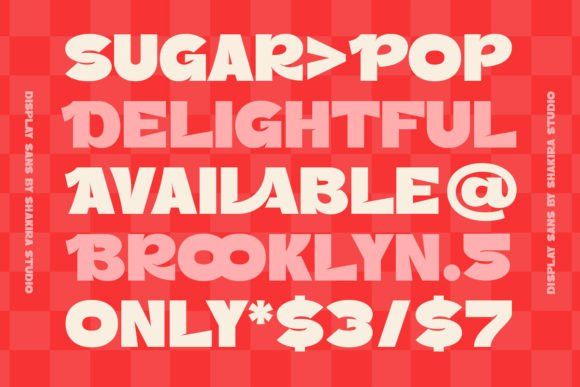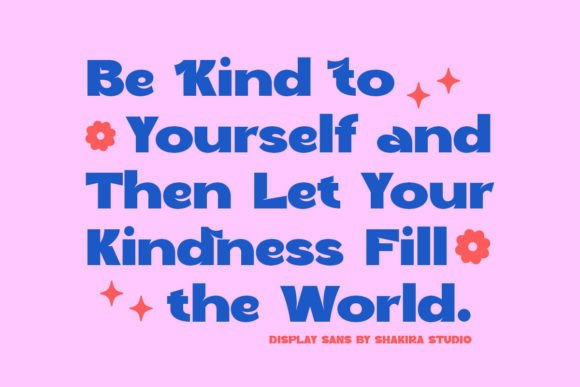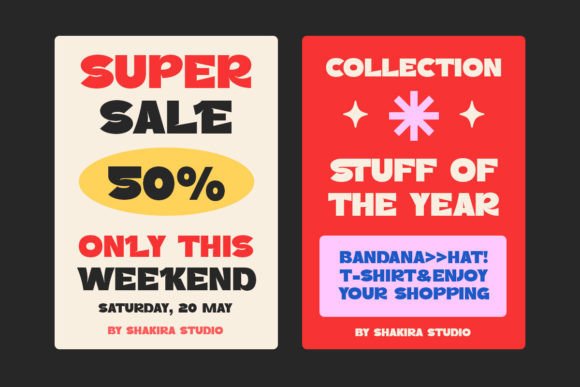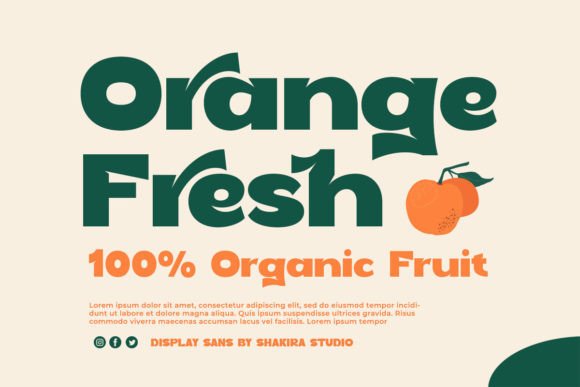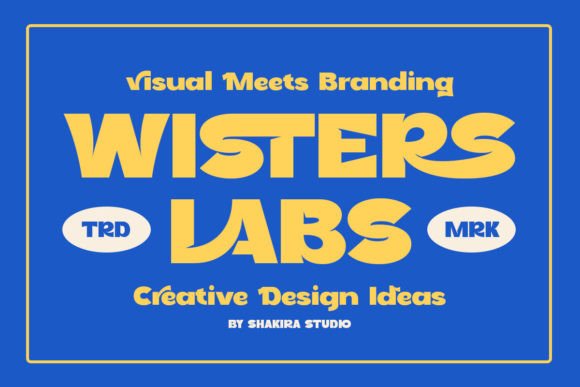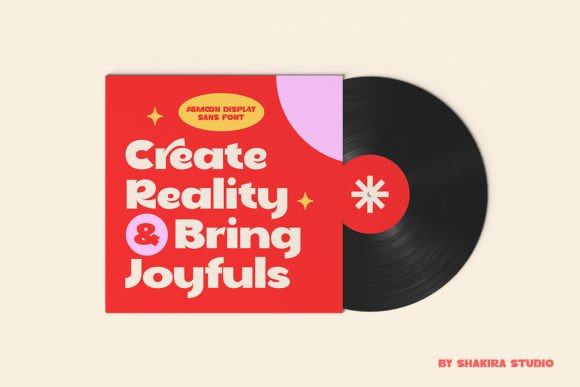
Introduction to Sagoon Font
You’ve finally landed that dream creative project, and the clock is ticking. You’re brainstorming ideas, pouring over inspiration, and searching for that one game-changing design element to take your project to the next level. That’s where Sagoon Font comes in – a bold sans serif display font that’s sure to make your designs stand out.
| 👤 Author | Shakira Studio |
As a designer, you know how valuable a high-quality, versatile font can be. Sagoon Font is the ultimate design resource, offering a unique blend of modern style and impact. With its thick, eye-catching characters and stylish ligatures, Sagoon Font is perfect for creating striking headlines, posters, and branding materials that demand attention. Whether you’re working on a free download or a commercial project, Sagoon Font is the perfect choice for adding a touch of sophistication and flair to your design.
Sagoon Font Key Features
- High-quality font design for creative projects, ideal for use in graphic design, digital art, and other visual media.
- Includes a transparent background, allowing for seamless integration with various backgrounds and designs.
- Designed with a unique aesthetic, the Sagoon Font is perfect for adding a touch of elegance and sophistication to any creative project.
Honest Review: Sagoon Font
I recently stumbled upon the Sagoon Font while searching for a free download to use in a creative project. As a designer, I’m always on the lookout for high-quality design resources that can elevate my work.
First impressions: the Sagoon Font is a unique and stylish font that would be perfect for projects that require a touch of elegance and sophistication. The font features a clean and modern design with a transparent background, making it easy to customize and use in a variety of contexts.
- ✨ High-quality design that is perfect for creative projects
- ✨ Easy to use and customize with a transparent background
- ⚠️ Limited font styles and weights available (only a few options)
- ⚠️ May not be suitable for projects that require a more playful or bold font
Overall impression: the Sagoon Font is a solid addition to any designer’s toolkit. While it may have some limitations, its high-quality design and ease of use make it a great resource for creative projects. I would definitely consider using it again in the future.
Sagoon Font
Tips for Getting the Most Out of Sagoon Font
For the best results, use the Sagoon Font with a transparent background. This will allow the font to stand out and make it easier to read. Additionally, consider using the font in combination with other high-quality design elements to create a visually appealing design.
The Sagoon Font is a versatile design resource that can be used in a variety of creative projects. Some common use cases include:
- Graphic design projects, such as logos and brochures
- Web design projects, such as website headers and footers
- Print design projects, such as business cards and flyers
Pacifico Font is a popular design resource that offers a beautiful, cursive script that is perfect for creative projects that require a touch of whimsy. It features a transparent background and is ideal for use in invitations, greeting cards, and other typography-based art. Pacifico Font is similar to Sagoon Font in terms of its elegant and refined aesthetic, but it has a more relaxed and casual feel.